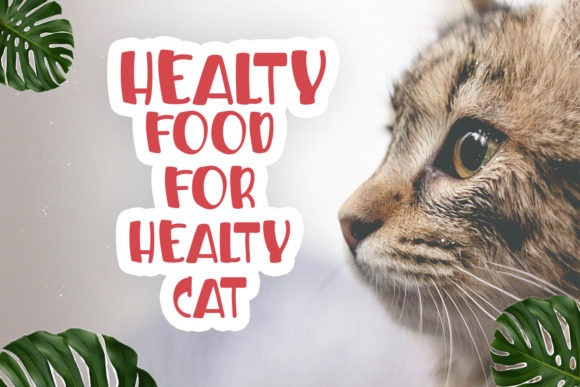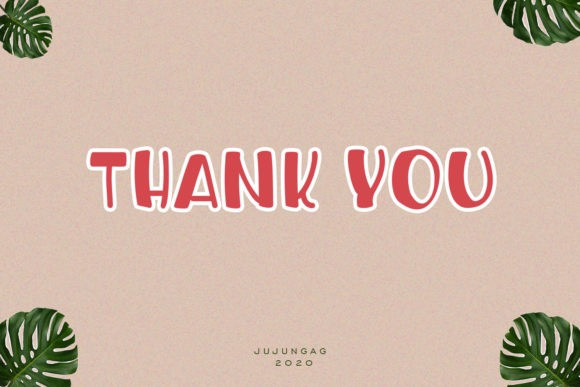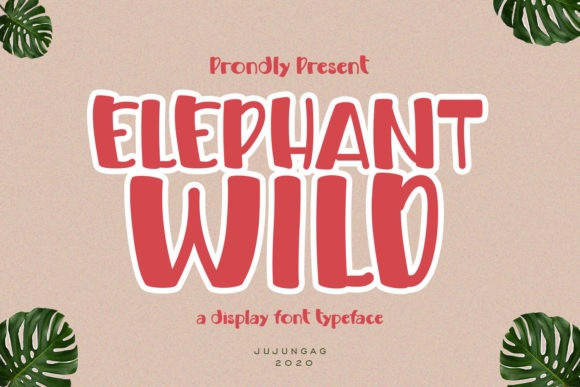
Elephant Whild Display Font
Elephant Wild is a cute and quirky display font. It will add an incredibly joyful touch to your designs. Add this beautiful display font to each of your creative ideas and notice how it makes them stand out!